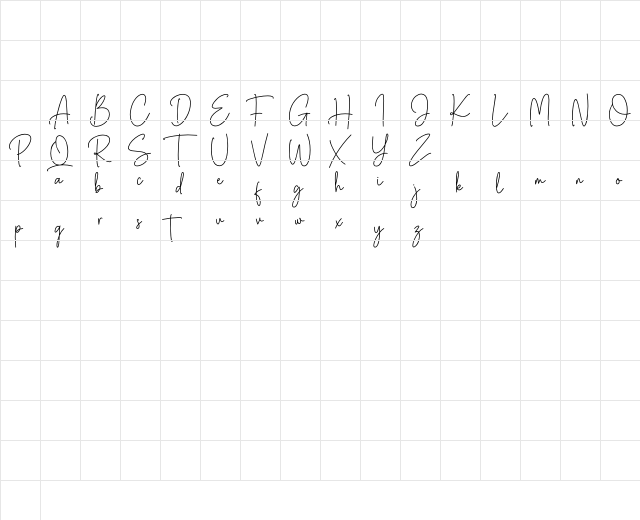
Complete Buttervill Regular glyph index. Displaying only characters natively supported by Buttervill Regular font.
Buttervill is a composed and adaptable typeface that performs quietly and consistently across a wide range of design contexts.